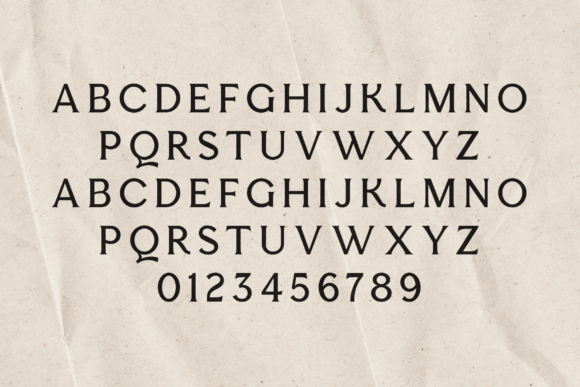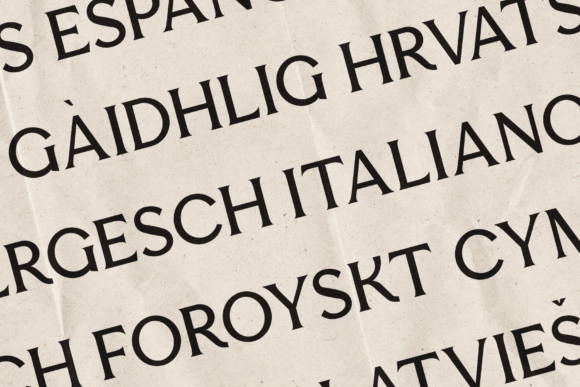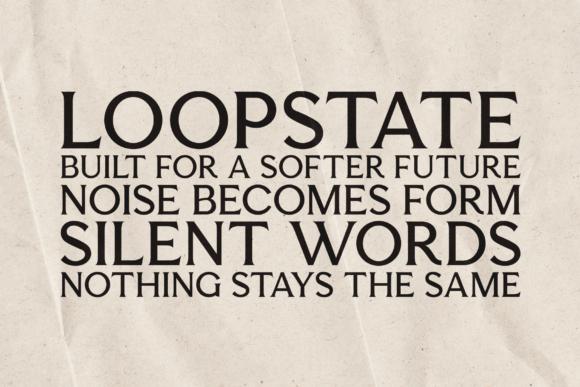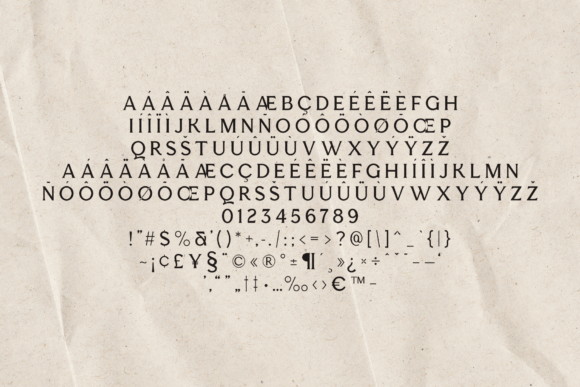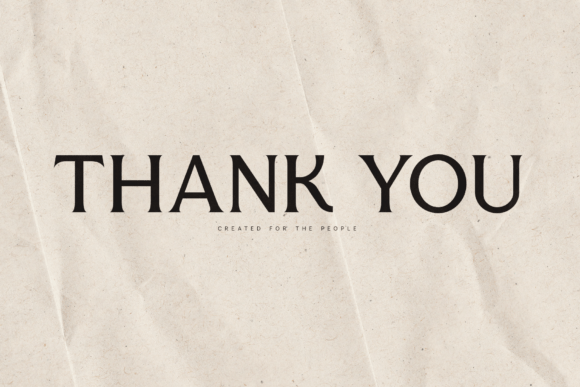
The Power of Typography: Discovering the Elegance of Esquie Font
I’ll never forget the moment I was working on a luxury branding project for a high-end fashion client. The design brief was clear: create a sophisticated visual identity that exuded elegance and refinement. But, as I scrolled through my font library, I found myself stuck. I needed a font that was both classic and modern, with a touch of sharpness to elevate the brand. That’s when I stumbled upon Esquie Font, a game-changing hybrid serif that has since become my go-to for luxury branding projects.
First Impressions: What I Love About Esquie Font
Esquie Font, specifically the ESQUIE – Hybrid Edition, has won me over with its refined high-contrast serif design. Here are a few things that I absolutely love:
- ✨ Classical elegance with a modern twist: Esquie seamlessly blends traditional serif elements with a sharp, contemporary edge.
- ✅ Clean and versatile: This font is incredibly versatile, making it perfect for a wide range of applications, from editorial layouts to sophisticated logo systems.
- 💡 Distinctive character: The subtle Q tail and sharp serif transitions give Esquie a unique personality without overwhelming the design.
A Few Quirks to Consider
No font is perfect, and Esquie is no exception. Here are a few minor quirks to keep in mind:
- 🤔 Limited use of certain OpenType features: While Esquie supports a range of OpenType features, some advanced features might not be as extensive as those found in other fonts.
- ⚠️ Requires careful kerning: As with any high-contrast serif font, Esquie may require manual kerning to ensure optimal readability, especially at smaller sizes.
The Story Behind Esquie: A Designer’s Inspiration
Esquie was designed with the modern brand in mind. Its creator sought to blend the timeless elegance of classical serifs with the sharpness and sophistication of contemporary design. The result is a font that feels both refined and quietly powerful.
| Font Name | Esquie Font |
| What makes Esquie suitable for luxury branding? | Esquie’s high-contrast serif design, elegant lines, and subtle personality make it perfect for luxury brands looking for a refined and sophisticated visual identity. |
| Can Esquie be used for body text? | While Esquie excels in headlines and titles, its high contrast and serif details make it less ideal for long body text. It’s best used for headings and short paragraphs. |
| Is Esquie a versatile font? | Yes, Esquie is incredibly versatile. It can be used for fashion branding, editorial layouts, luxury packaging, and premium identity systems. |
| Does Esquie support OpenType features? | Yes, Esquie supports various OpenType features, including ligatures and stylistic alternates, which can be used to add depth and uniqueness to your designs. |